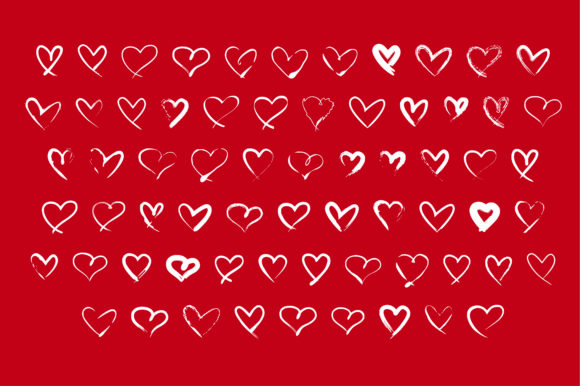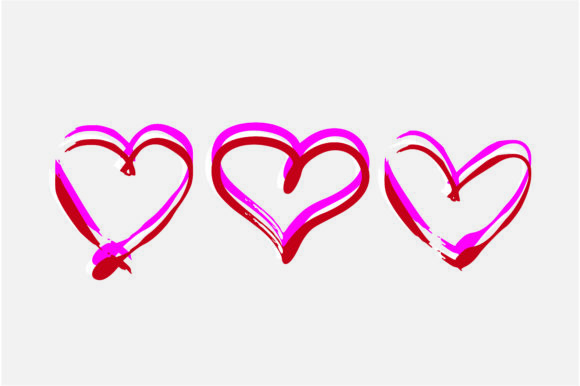
Introduction to BM Graphics – Hearts Font Font
Fonts play a crucial role in design, and the BM Graphics – Hearts Font font is a typeface that brings both character and versatility to any project. Whether you’re working on a branding project, a website, or a print design, the BM Graphics – Hearts Font font offers a unique style that can elevate your work.
A set of 75 different glyphs in a massive range of styles and designs.
Great for quickly adding graphics to a design or line of text Export to create icons, crafts and more.
Key Features of BM Graphics – Hearts Font Font
Why Choose BM Graphics – Hearts Font Font?
The BM Graphics – Hearts Font font is more than just a typeface – it’s a design tool that helps you communicate your message with style and clarity. Its unique character set and versatile design make it suitable for a wide range of applications, from elegant invitations to bold headlines.
With its carefully crafted letterforms and balanced proportions, the BM Graphics – Hearts Font font ensures readability and visual appeal across all mediums.
What makes BM Graphics – Hearts Font font special?
The BM Graphics – Hearts Font font stands out with its unique design, exceptional readability, and versatility across various design applications.